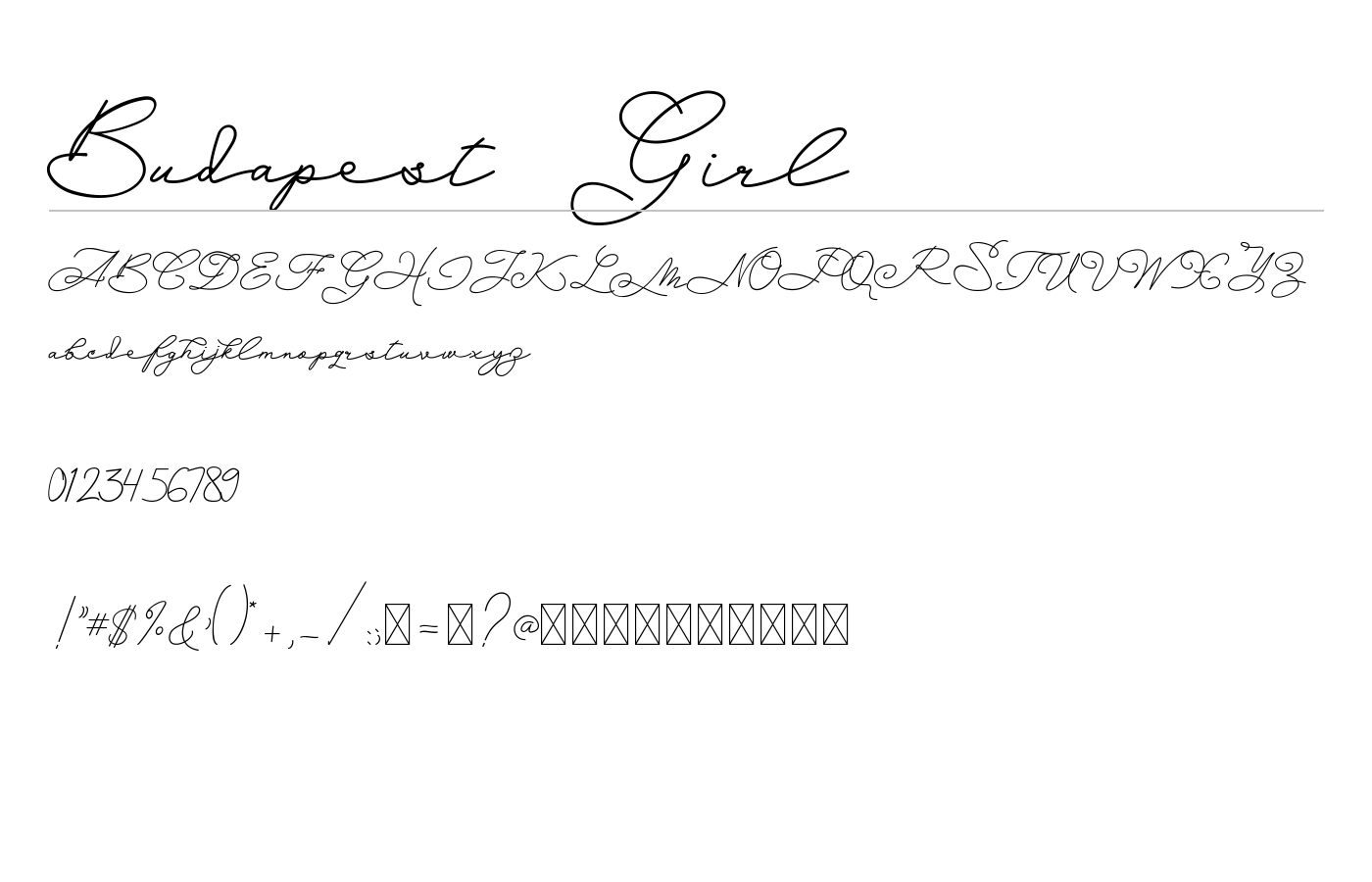
Budapest Girl is a delicate, elegant script font characterized by thin, flowing strokes and graceful, calligraphic letterforms. Its light weight and airy design give it a sophisticated, feminine feel that works beautifully for wedding invitations, fashion branding, and other romantic or luxurious projects. This font shines in headline use or decorative accents where a touch of refinement and charm is desired.
Budapest Girl Font
About Budapest Girl Font
| Font family | Budapest Girl Font |
| Designer | Omaikraf Studio |